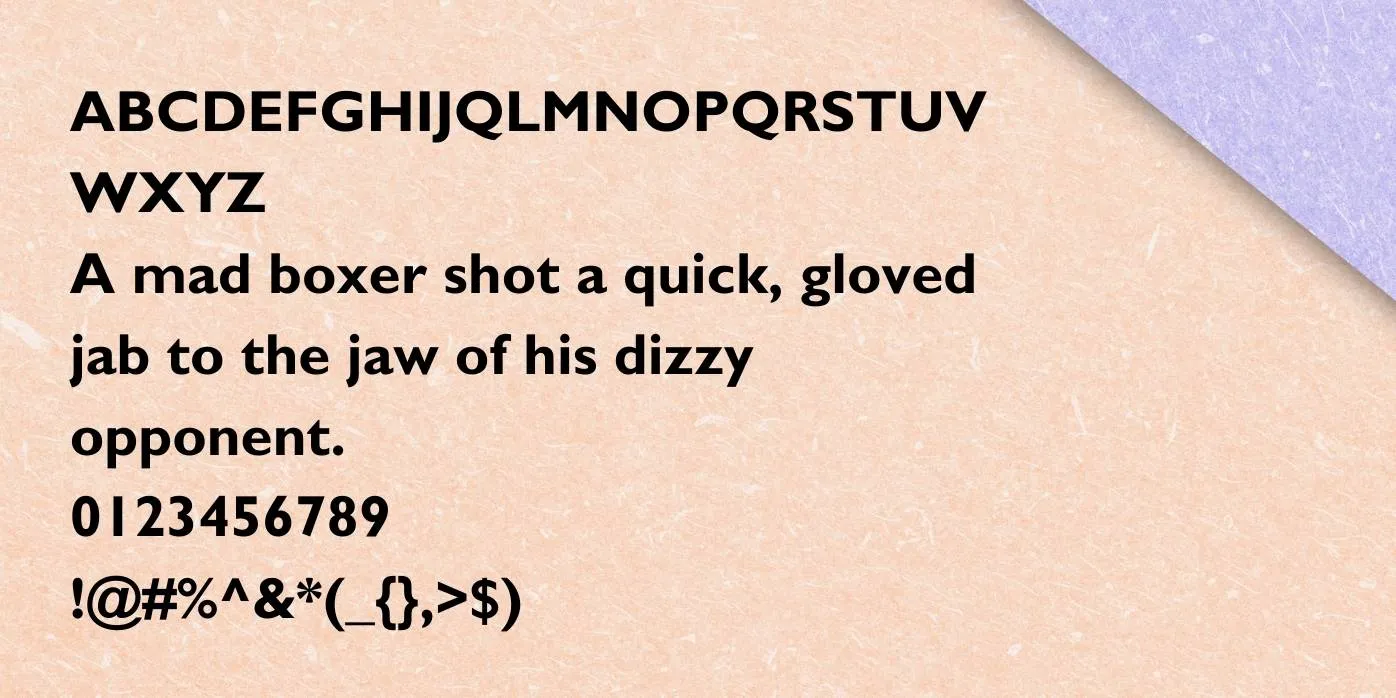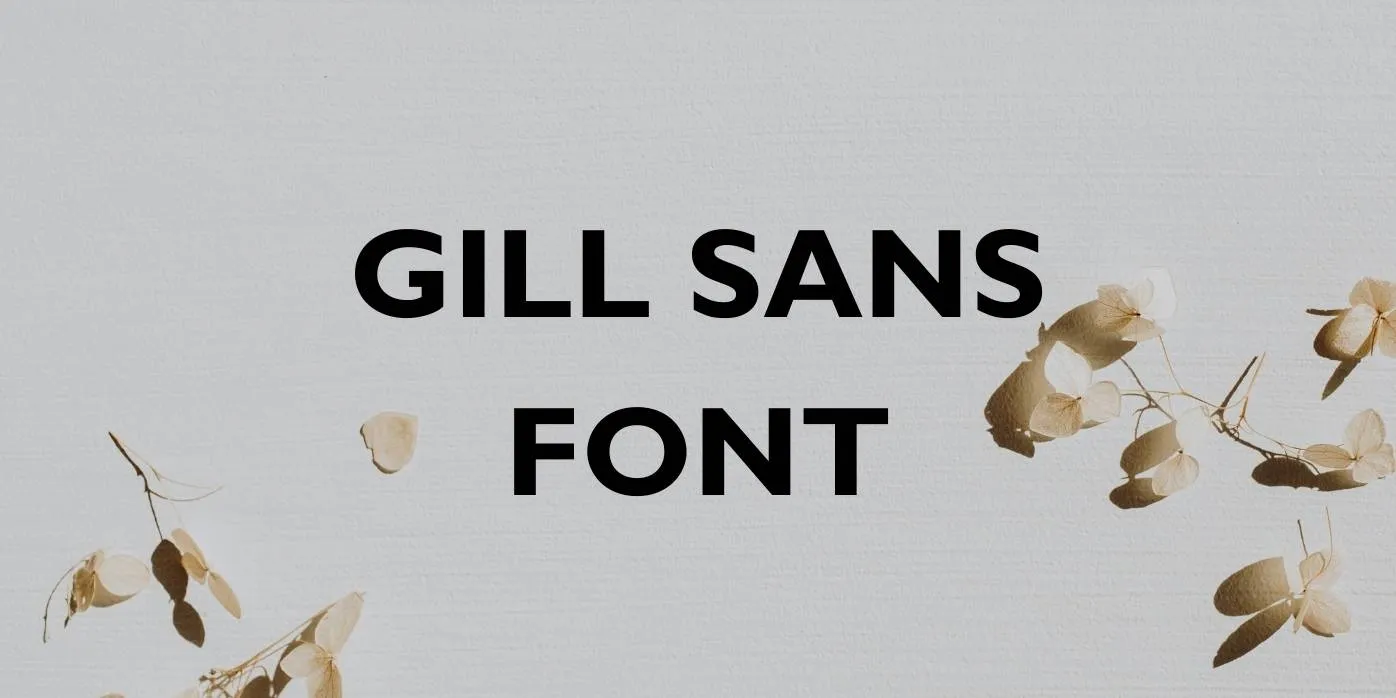
Gill Sans Font
Gill Sans Font is a beautiful and humanistic typeface that belongs to a Sans Serif typeface family. It has an OTF feature and is free for personal use only. The designer of this typeface is well-reputed who made many other famous fonts named “Eric Gill”. The font family has many different styles and weights that include STD, Bold, Condensed, Italic, Light, Shadowed, Condense, and many other combinations of these weights.